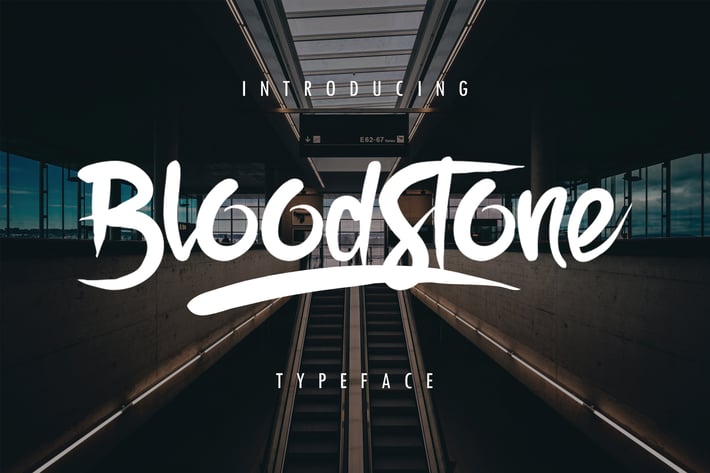
BloodStone Typeface
BloodStone Typeface is strong, sharp and have a painted look feel. Suitable for digital lettering, branding materials, t-shirt, print, business cards, quotes, logo, poster, t-shirt, nature photography and applicable for any graphic design.